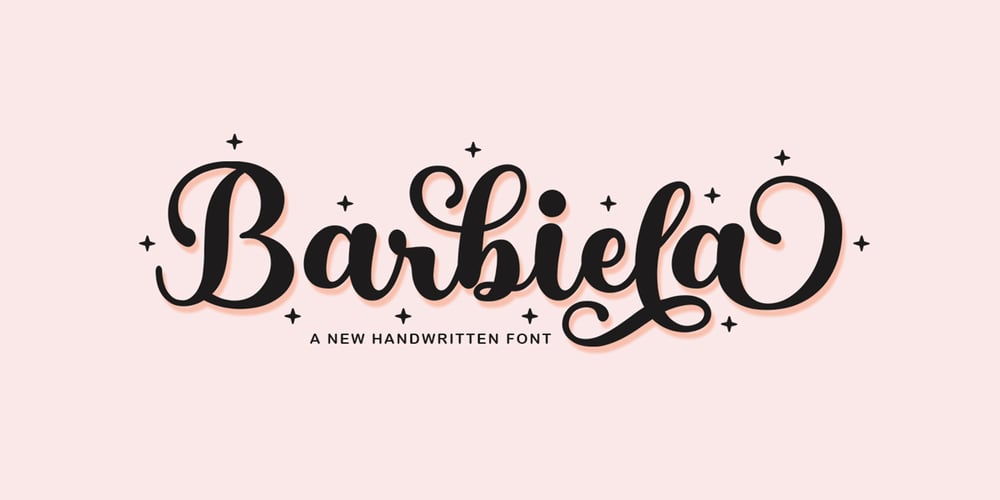
Barbiela Script
Barbiela Script font
Barbiela Script Font Family was designed by Mu Fazzal and published by Bosstypestudio. Barbiela Script contains 1 styles and family package options. Barbiela Script is a modern calligraphy cute font, Can be used for various purposes. such as logos, product packaging, wedding invitations, branding, headlines, signage, labels, signatures, book covers, posters, modern, script, quotes and others.